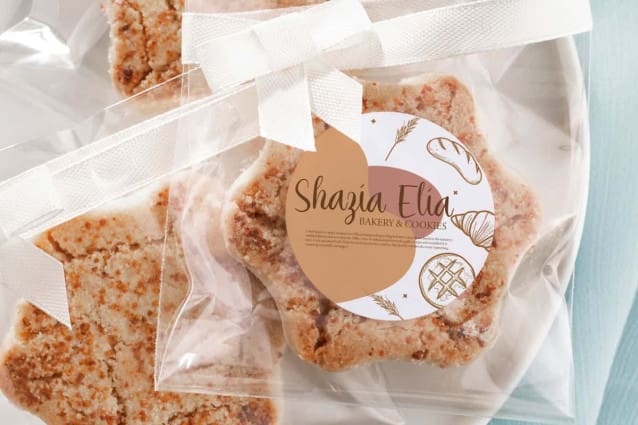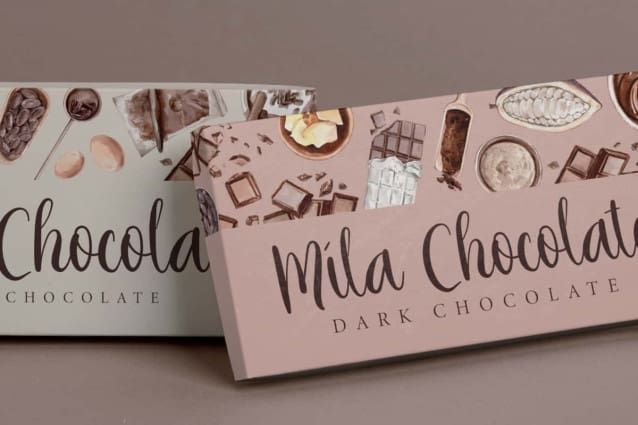
Choco Brewing Font
Choco Brewing Font is a sweet and stylish modern calligraphy, allowing you to create and get custom dynamic text with your dream layout. It will be perfect for your next design, such as banners, blogs, brand logo, card designs, covers, headers, invitations, labels, product packaging, signs, stationery, stickers, template mockup, titles, websites, and much more.
Choco Brewing Font is a casual and elegant calligraphy style font that comes with beautiful ligatures that not only add to the beauty of this font but also make any design stand out. This allows you to create any look that feels alive for your projects, such as bakery, baking class, chocolate producers, confectioner, event organizer, graphic design, pastry chef, printing, publishing, restaurant, shop selling sweet things, etc.